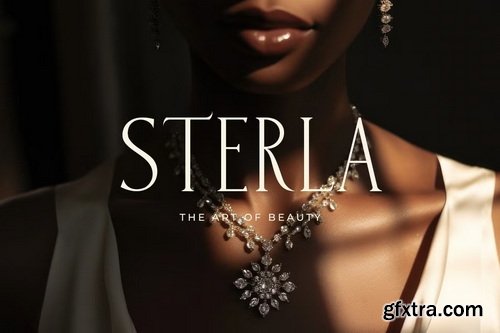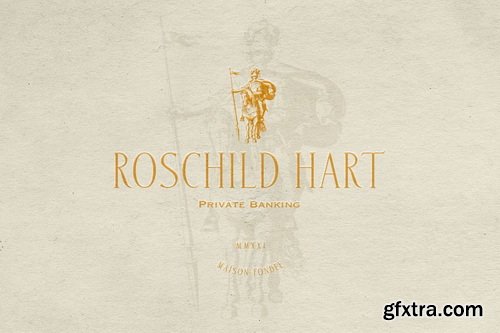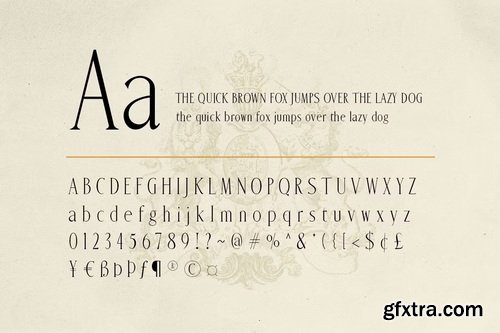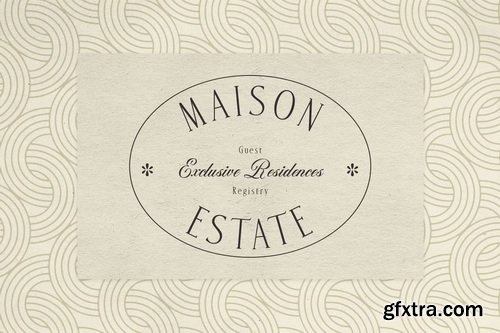
CreativeMarket - Malimbu Exclusivity Serif
- Elegant serif typeface that combines timeless tradition with modern sophistication. Its sleek lines and subtle curves make it ideal for upscale branding, luxury design, and refined digital content. Perfect for projects that require a touch of grace and professionalism.